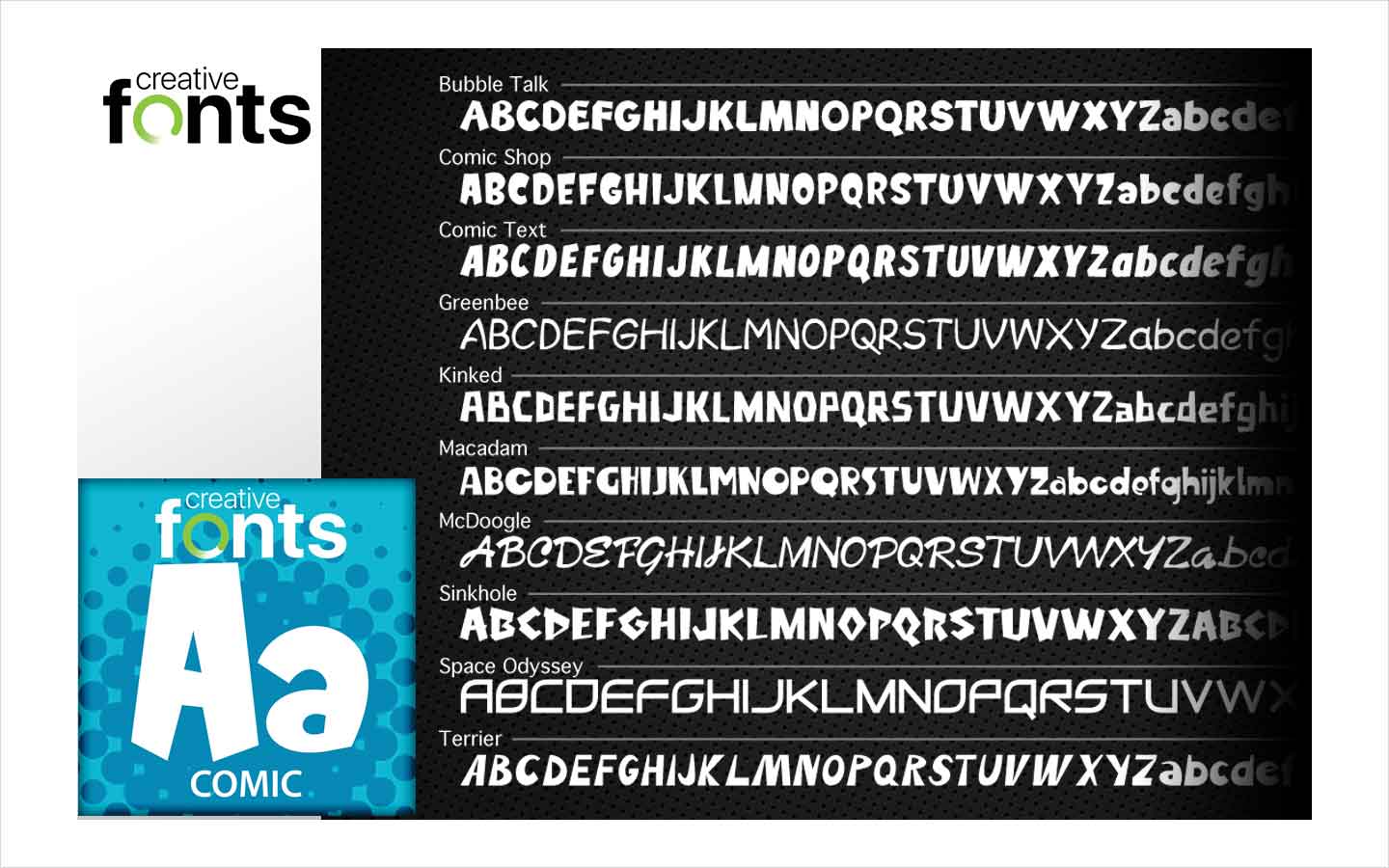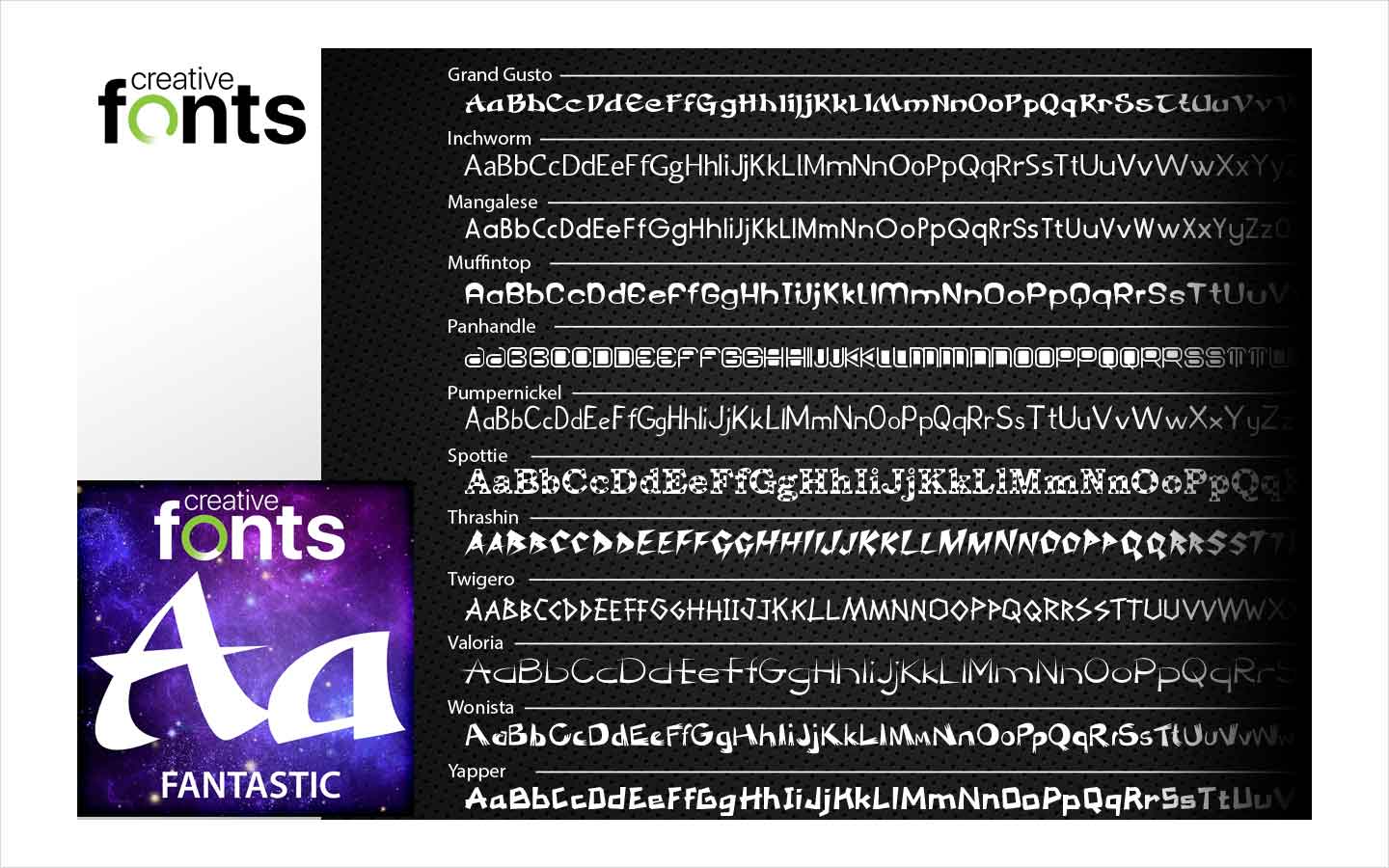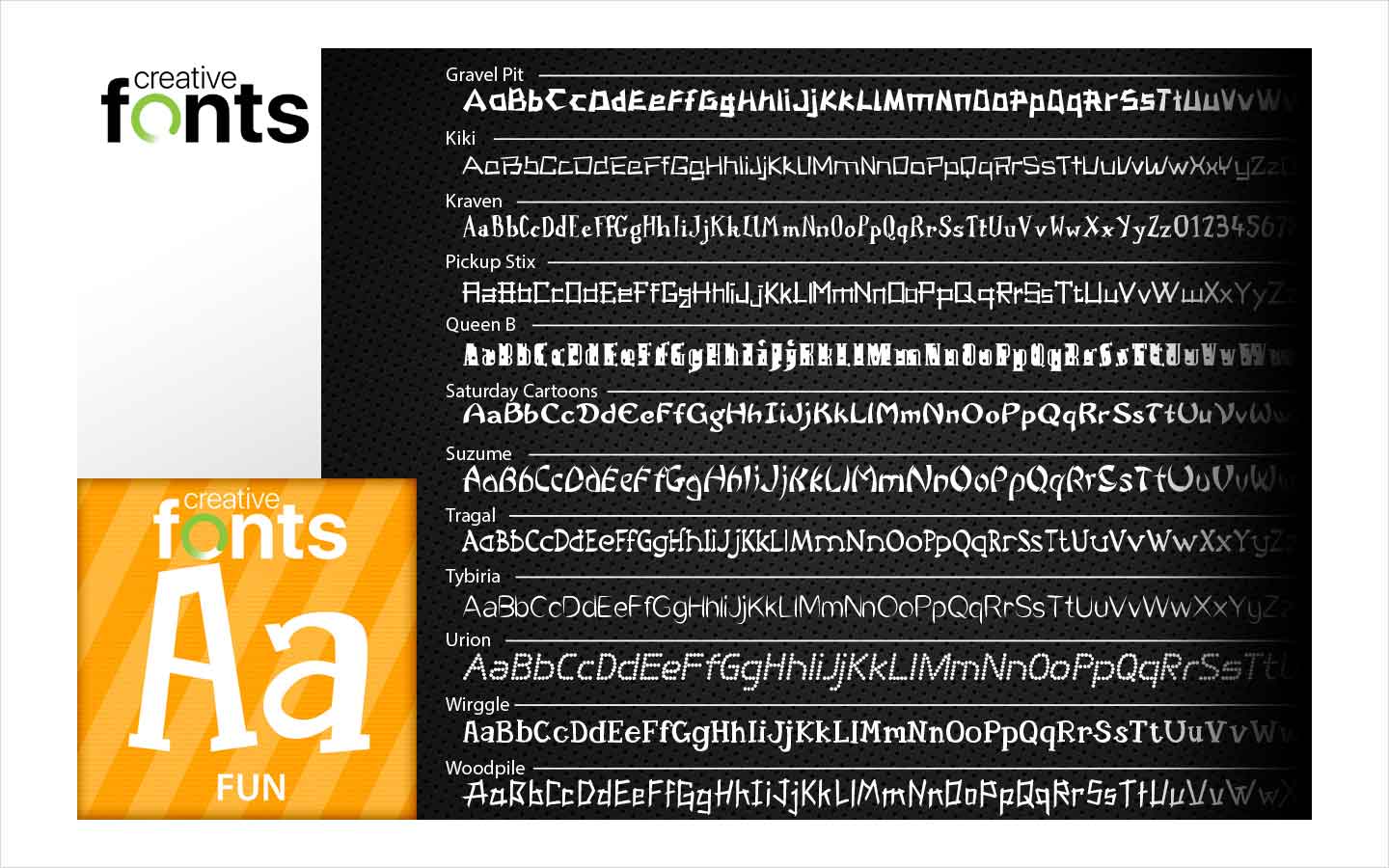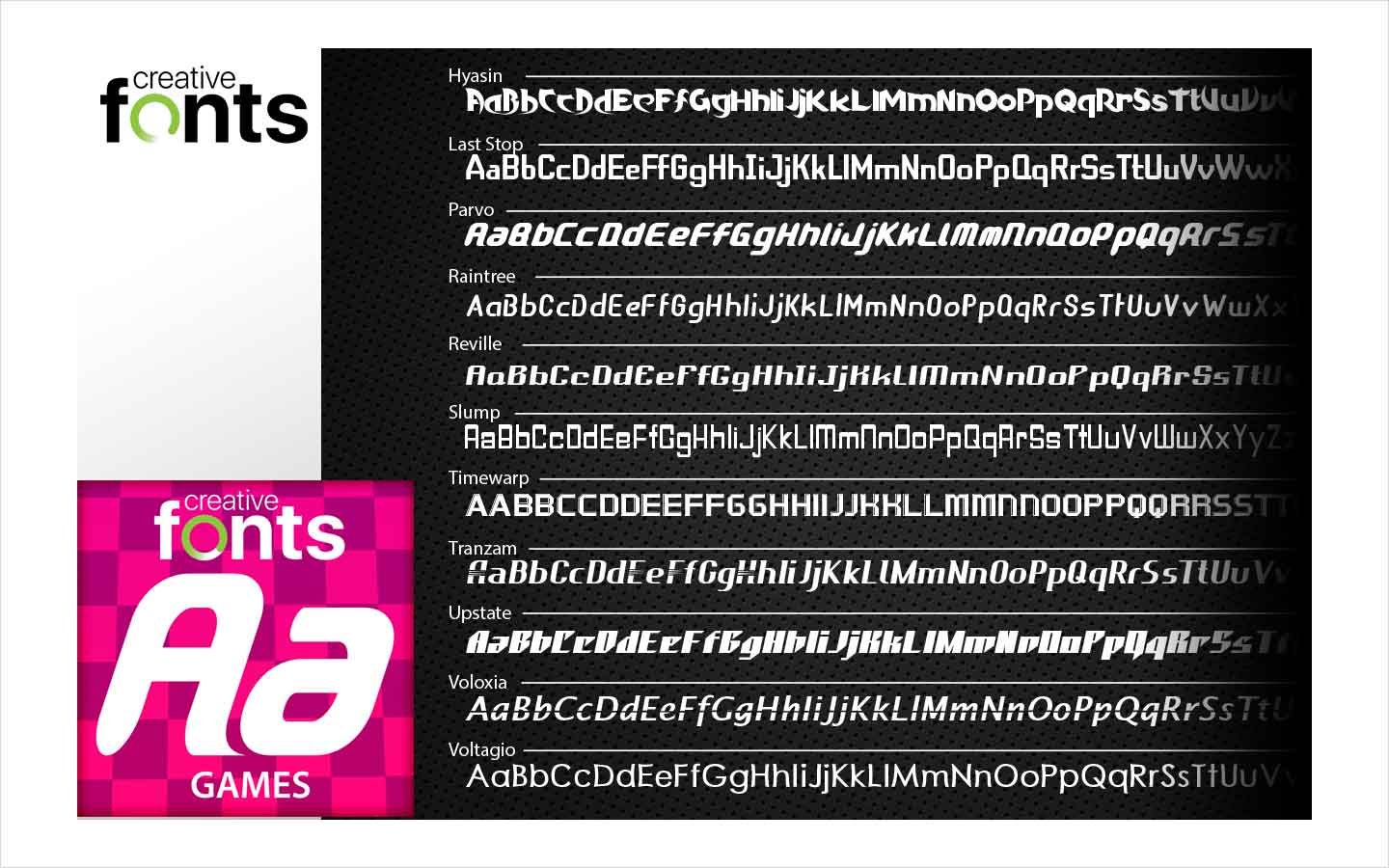
Creative Fonts Wonderful Collection
The Wonderful Fonts Collections comes with unique and professionally created fonts that represent a fun and whimsical take on traditional fonts and makes a great addition to any font library.
The Creative Fonts Wonderful Collection is a unique, hand selected group of fonts categorized into themed sets that you can view in more detail below.
- Sci-Fi Fonts
- Fun Fonts
- Sports Fonts
- Fantastic Fonts
- Game Fonts
- Comic Fonts
Sci-Fi Fonts
Dominate the galaxy (and your next sci-fi event) with a high-tech, space-aged look and feel. Use the fonts in this Sci-Fi inspired font collection to create party specifications with a technical touch.
Fun Fonts
This collection of fonts adds a bit of fun to your project. These fonts are great for school projects, websites, arts and crafts and any project that needs a little bit of whimsy added to the mix.
Sports Fonts
Inspired by teams, athletics, and sports fans from across the globe. This collection of Sports Fonts is ideal for clubs, organizations, schools, and jerseys.
Fantastic Fonts
Inspired by space, exploration, and the world of fantasy these fonts are perfect for science projects, websites, graphics, newsletters and so much more.
Game Fonts
Inspired by board and video games that we all grew up with. From the table-top to the video screen, these fonts are a perfect collection that represents a playful take on traditional fonts.
Comic Fonts
Comic Fonts are a great way to add an animated look and feel to your project. Ditch the over used comic sans for the fresh looking and fun fonts in Comic Fonts.